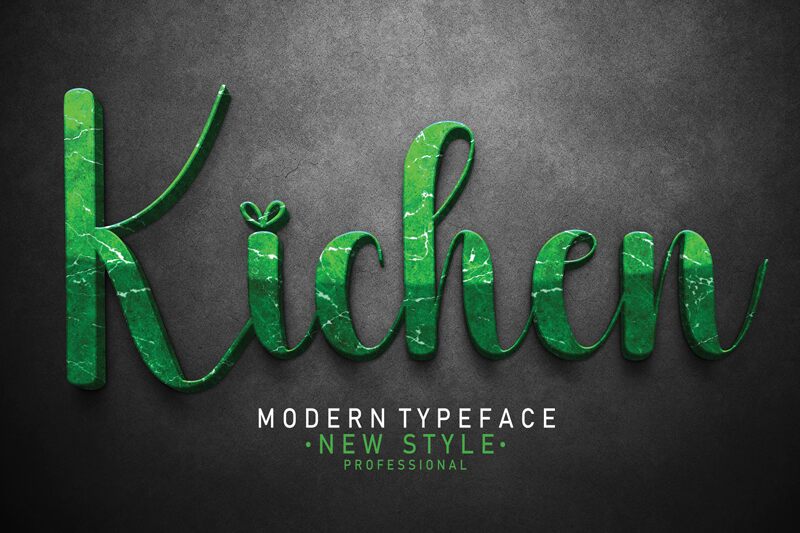
Kichen
Kichen font, designed by Scratchones, captivates with its enchanting handwritten style that flows gracefully across the page. Its whimsical curves and playful loops infuse a sense of personality, making each letter feel like a unique brushstroke. The lightness of its form gives it an airy quality, while its slightly exaggerated flair adds character and charm.
This font is perfect for crafting warm, inviting designs—from cozy cafe menus to delightful invitations and personal stationery. Kichen effortlessly enhances branding materials seeking a friendly touch or any project that aims to convey creativity and warmth. Whether used in digital or print formats, this font leaves a lasting impression that resonates with audiences who appreciate artistry in typography.